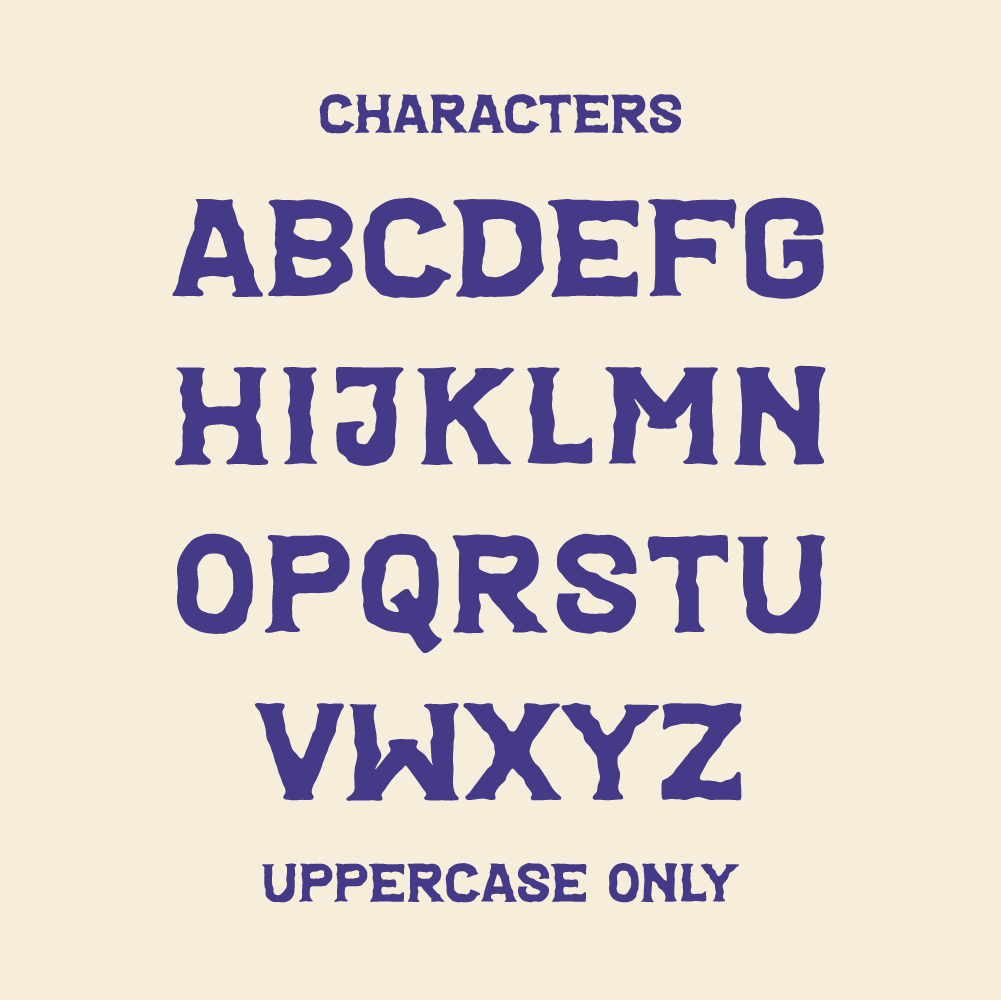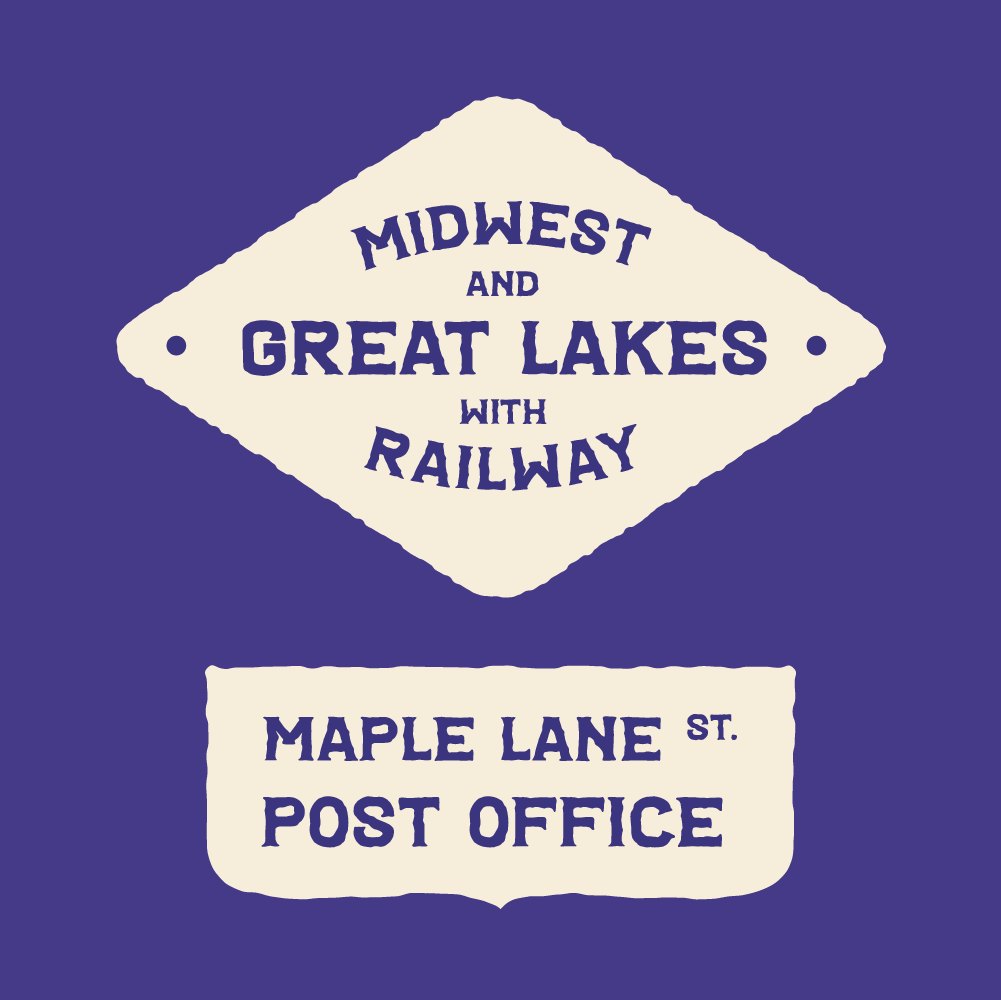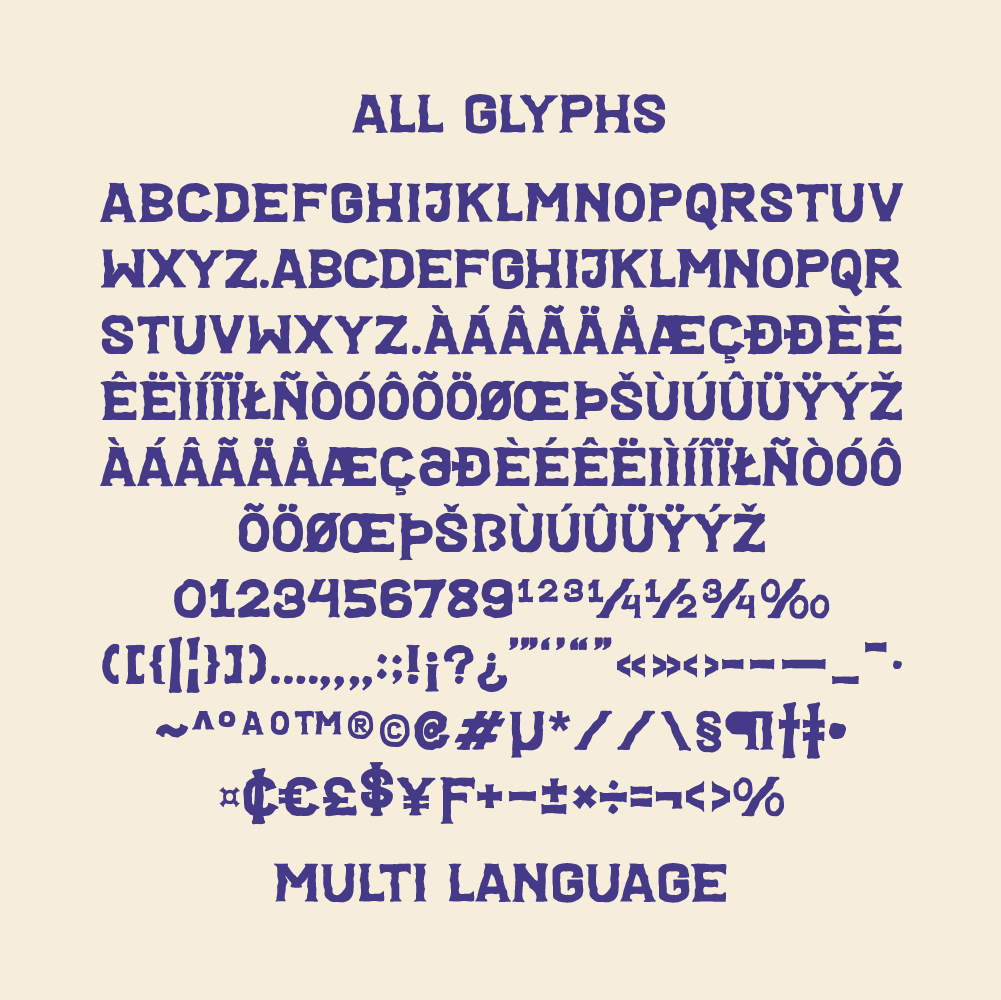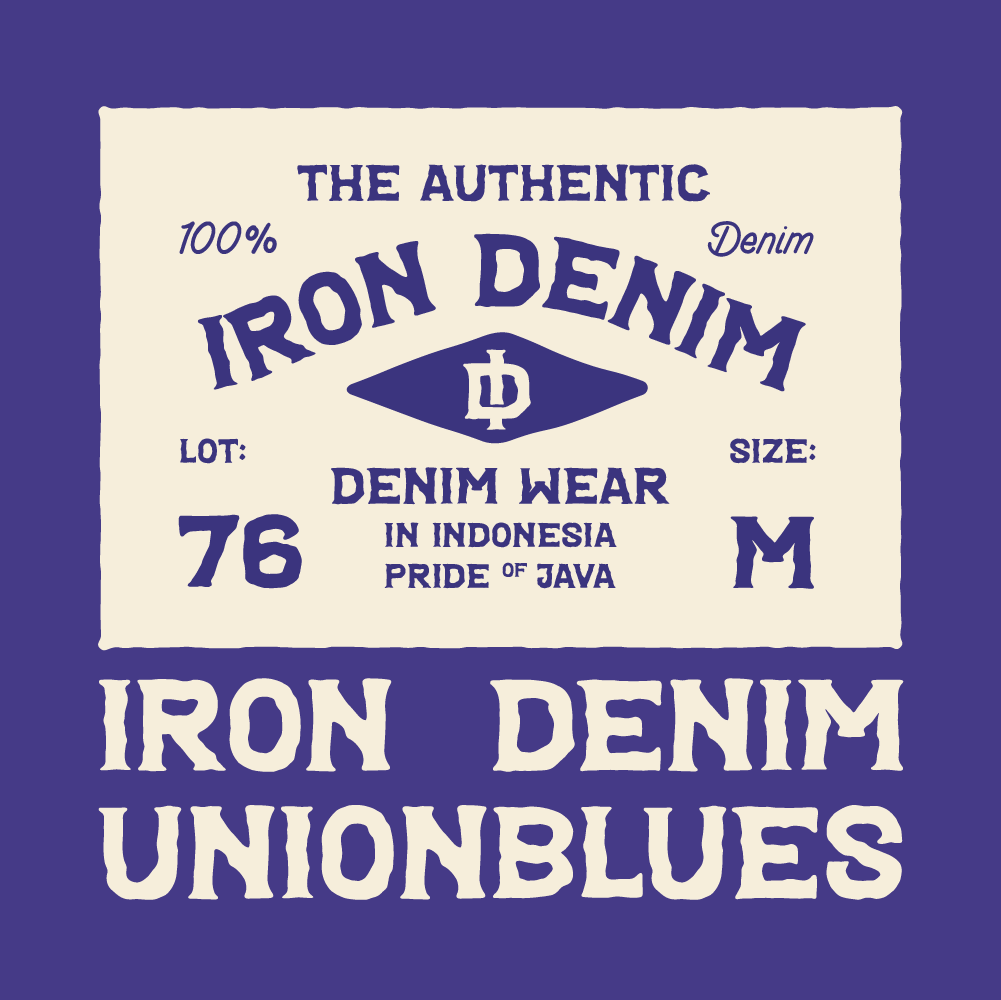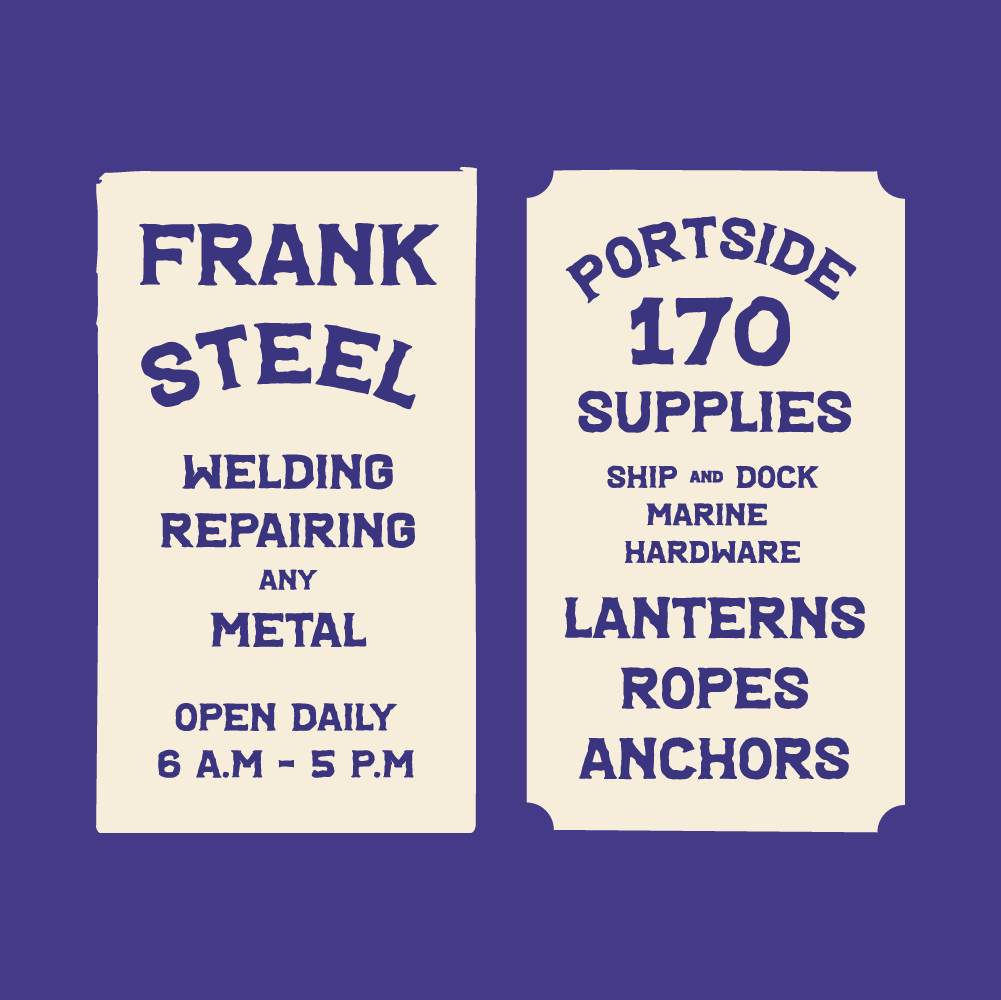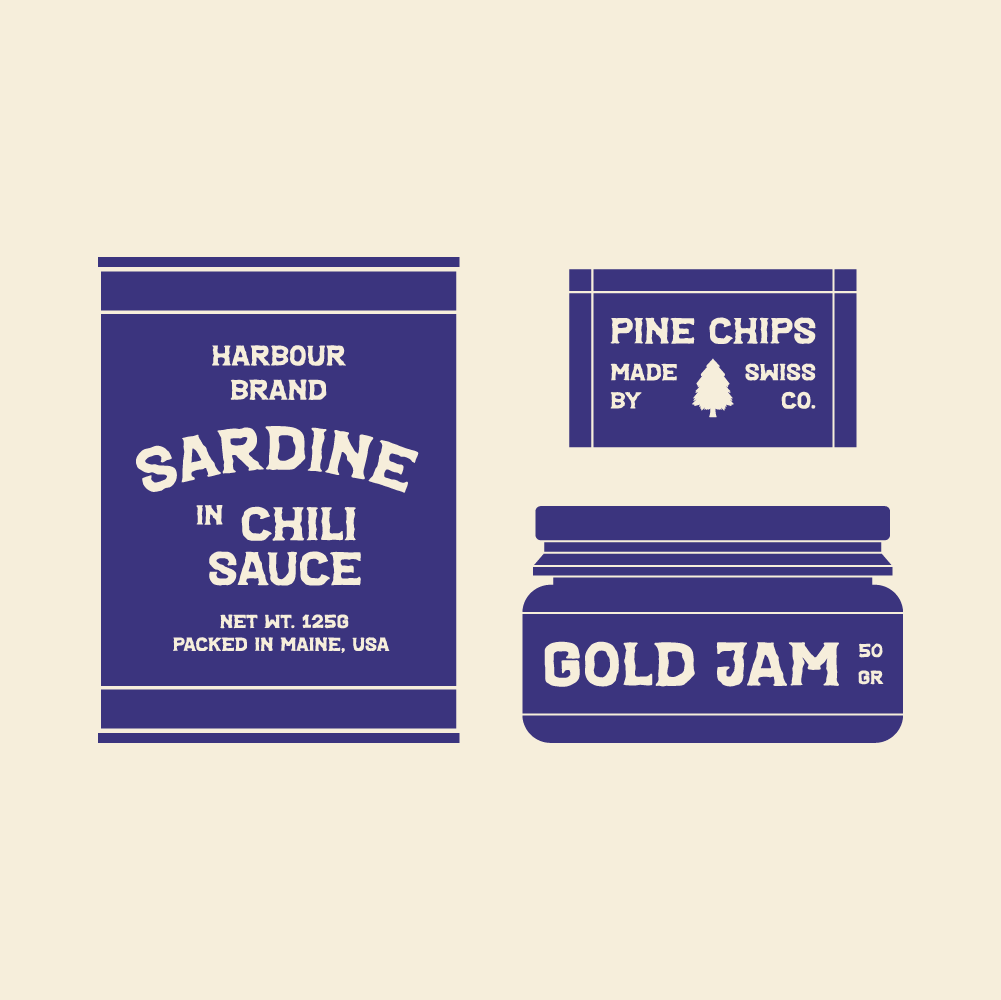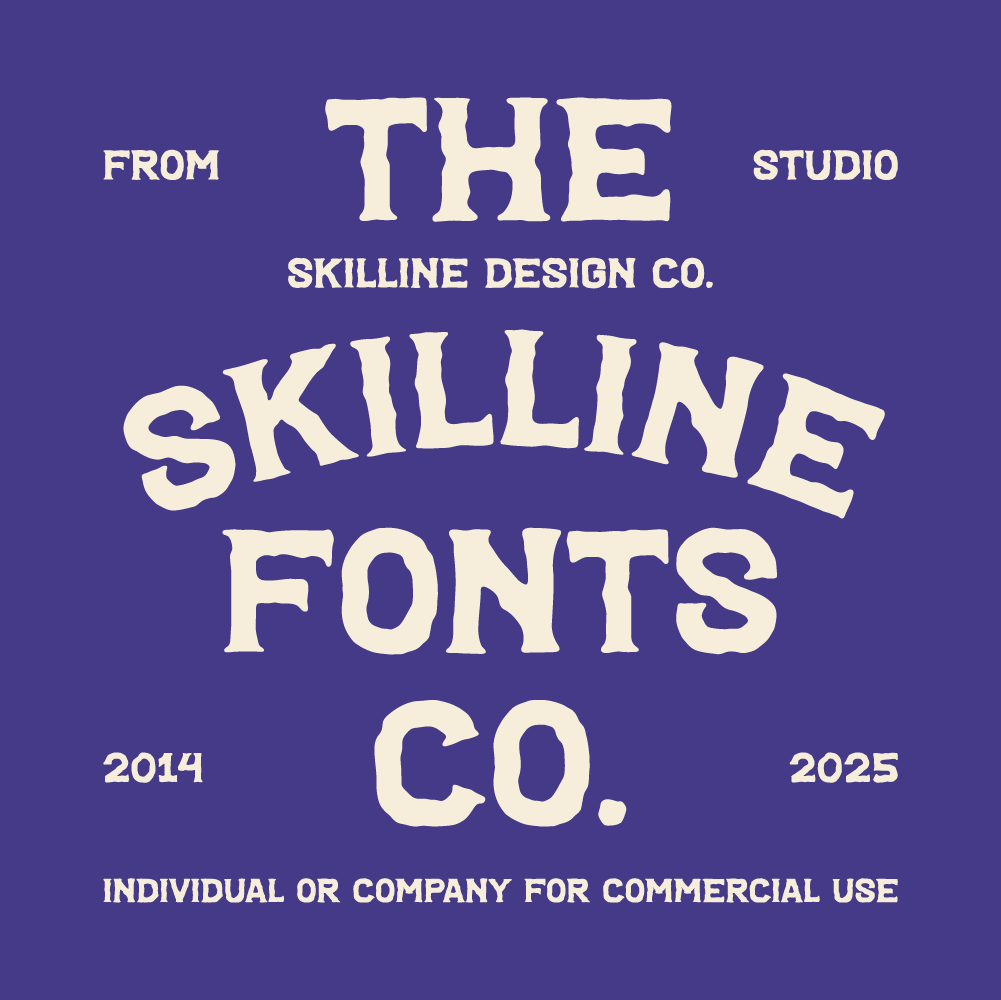
Unionblues is a hand-drawn display font inspired by classic vintage signage, featuring bold strokes, rugged edges, and a timeless handmade feel. Designed for modern branding with a retro spirit, it delivers strong visual impact while remaining highly readable.
Its all-caps design and subtle handcrafted imperfections give Unionblues a distinctive artisanal character, making it ideal for logos, packaging, posters, labels, badges, and merchandise that need a bold, authentic presence.
Ideal Applications for SFC Unionblues Typeface
• Logo & brand identity design
• Vintage-inspired packaging & labels
• Posters, signage, and display headlines
• Editorial layouts, zines, and cover designs
• Merchandise & apparel (t-shirts, hats, tote bags)
• All Caps Typeface
• Handcrafted Display Letterforms
• Basic Numerals & Punctuation
• Multilingual Support
SFC Unionblues